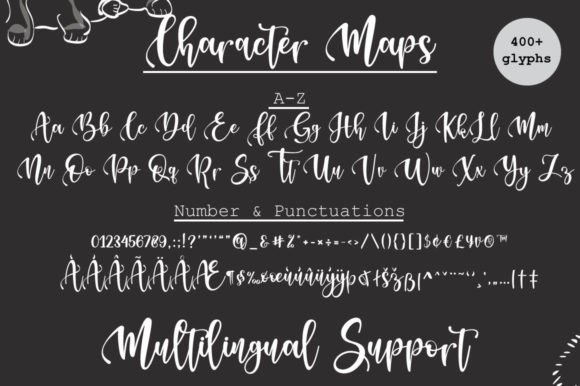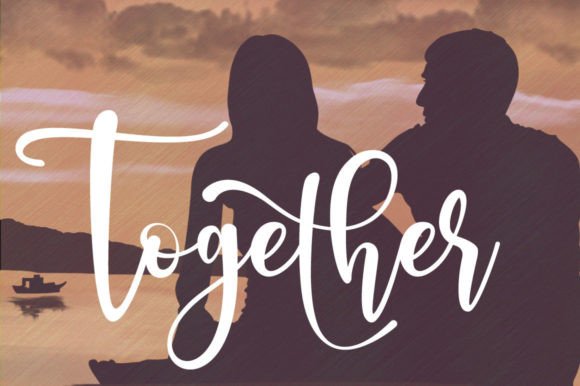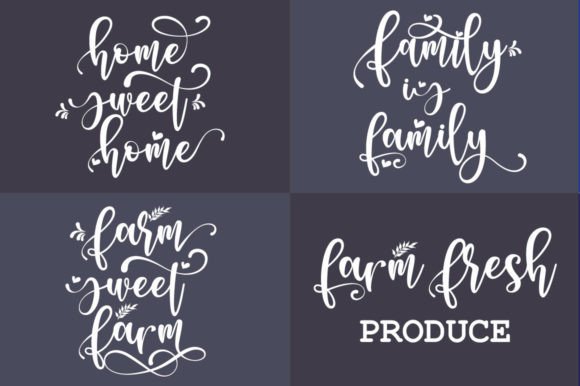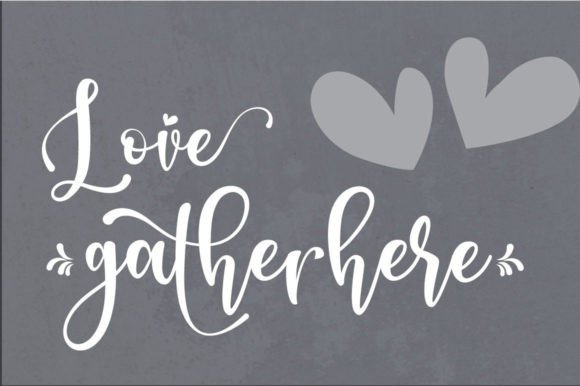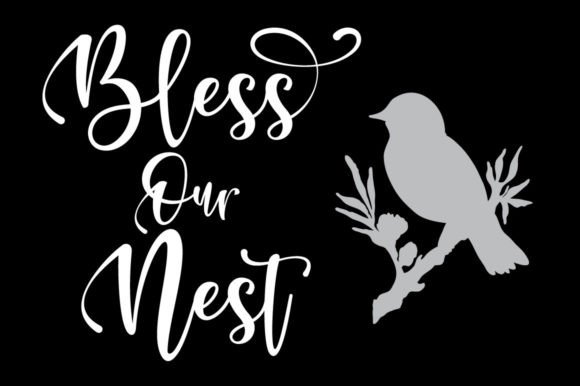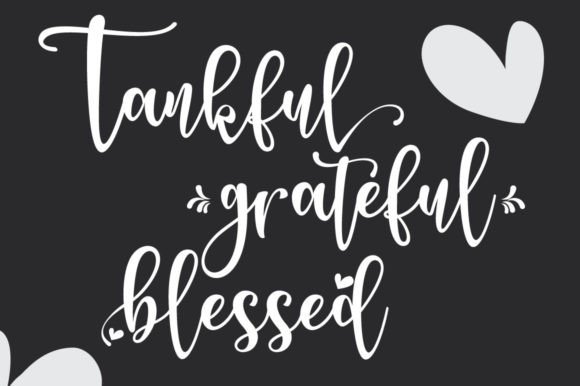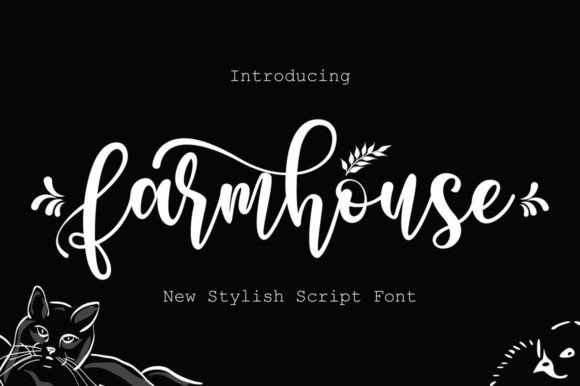
Introducing Farmhouse Font: Elevate Your Designs with a Touch of Elegance
In the world of typography, fonts play a crucial role in conveying the tone and personality of a design. For designers and crafters looking to add a personal touch to their projects, Farmhouse Font is an excellent choice. This modern and stylish script font is carefully crafted with a touch of elegance in every character, making it perfect for creating designs that exude confidence and exuberant energy.
Farmhouse Font is a beautiful script font designed to bring a sense of sophistication and style to any project. Its elegant and flowing lines make it ideal for designs that require a personal touch. Whether you’re working on a wedding design, fashion branding, logotype, or handwritten quotes, Farmhouse Font is the perfect choice.
- Modern and Stylish: Farmhouse Font boasts a modern and stylish design that’s sure to turn heads. Its unique and elegant lines make it stand out from other script fonts.
- Elegant and Refined: Each character in Farmhouse Font is carefully crafted with a touch of elegance, making it perfect for designs that require a level of sophistication.
- Versatile: Farmhouse Font is suitable for a wide range of projects, including wedding designs, fashion branding, logotypes, and handwritten quotes.
- Easy to Read: Despite its elegant design, Farmhouse Font is easy to read, making it perfect for body text and headings.
Use Cases for Farmhouse Font
Farmhouse Font is an incredibly versatile font that can be used in a variety of design projects. Here are some use cases to get you started:
- Wedding Designs: Add a touch of elegance to your wedding designs, including invitations, programs, and signage.
- Fashion Branding: Use Farmhouse Font to create stunning fashion branding, including logos, packaging, and advertising materials.
- Logotypes: Create custom logotypes that exude confidence and sophistication.
- Handwritten Quotes: Add a personal touch to your handwritten quotes and social media posts.
Benefits of Using Farmhouse Font
Using Farmhouse Font in your designs comes with a range of benefits, including:
- Unique and Memorable: Farmhouse Font is a unique and memorable font that will help your designs stand out from the crowd.
- Elegant and Sophisticated: Add a touch of elegance and sophistication to your designs with Farmhouse Font.
- Time-Saving: With Farmhouse Font, you can create stunning designs in no time, thanks to its easy-to-read and versatile design.
To get the most out of Farmhouse Font, here are some tips to keep in mind:
- Pair with Other Fonts: Experiment with pairing Farmhouse Font with other fonts to create a unique and visually appealing design.
- Use in Headings and Titles: Use Farmhouse Font in headings and titles to add a touch of elegance and sophistication.
Farmhouse Font is a stunning script font that’s perfect for designers and crafters looking to add a personal touch to their projects. With its modern and stylish design, elegant lines, and versatile use cases, Farmhouse Font is an excellent choice for any design project. Whether you’re working on a wedding design, fashion branding, logotype, or handwritten quotes, Farmhouse Font is sure to elevate your designs to the next level.